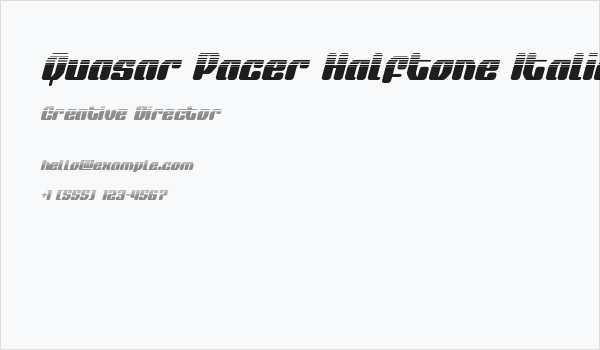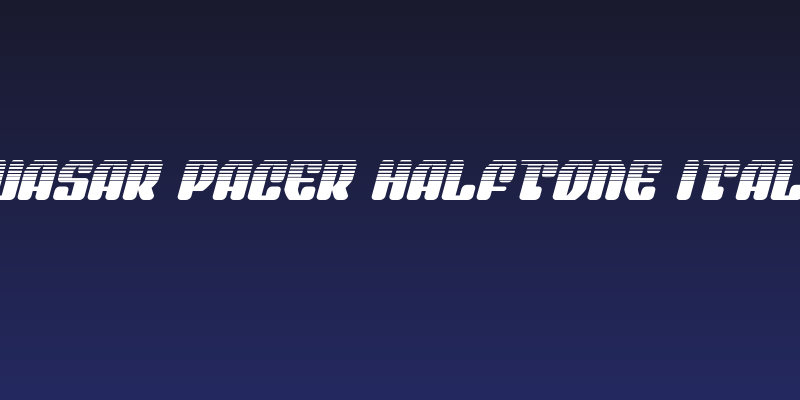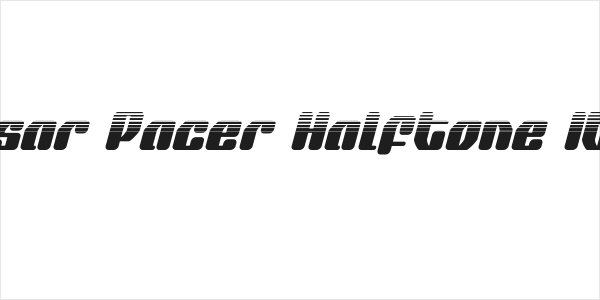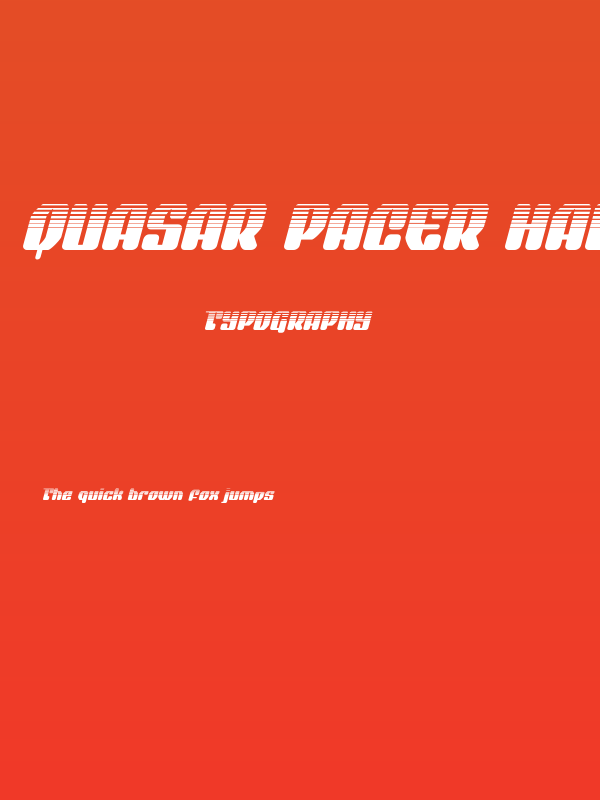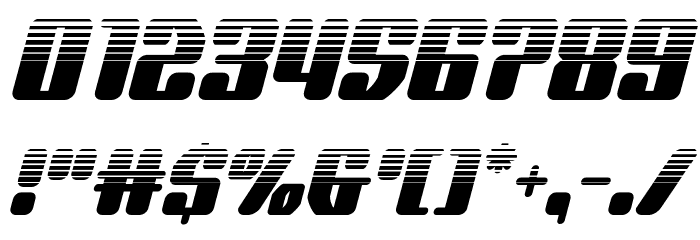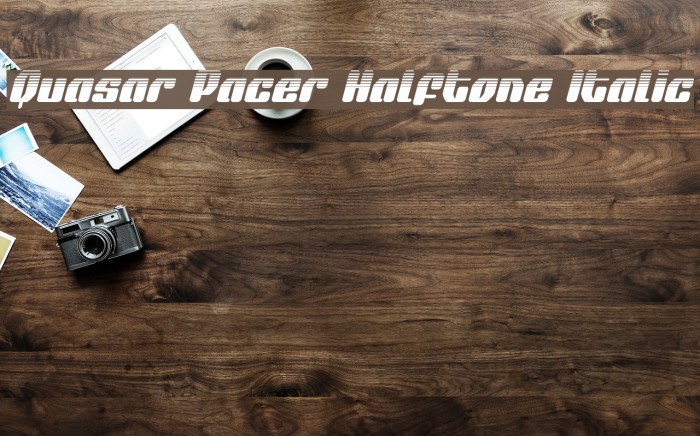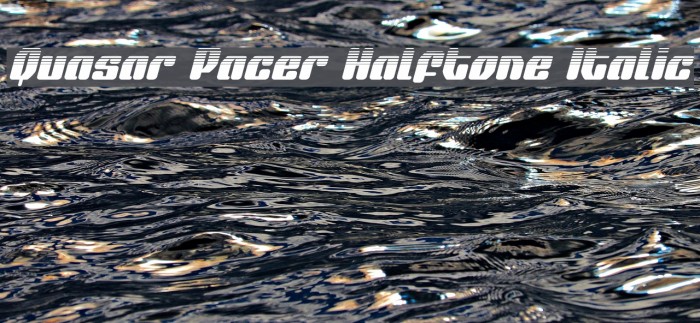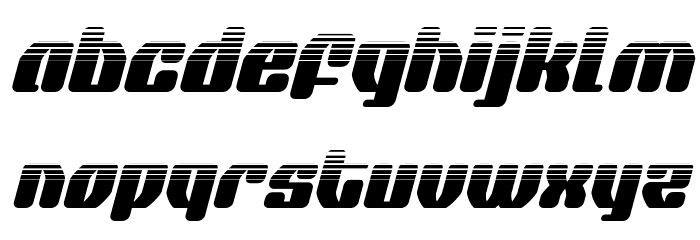
Quasar Pacer Halftone Italic Font
Quasar Pacer Halftone Italic Description
This font features a bold, italicized style with a distinctive halftone effect that gives it a dynamic and futuristic appearance. The characters are designed with horizontal lines that create a sense of motion and speed, making it ideal for projects that require a modern and energetic look. The uppercase and lowercase letters maintain a consistent style, with the numbers and special characters following suit. The overall design is eye-catching and suitable for attention-grabbing headlines or logos.
| Proposed Projects | Ideal for sports branding, tech company logos, futuristic posters, and dynamic advertising campaigns. |